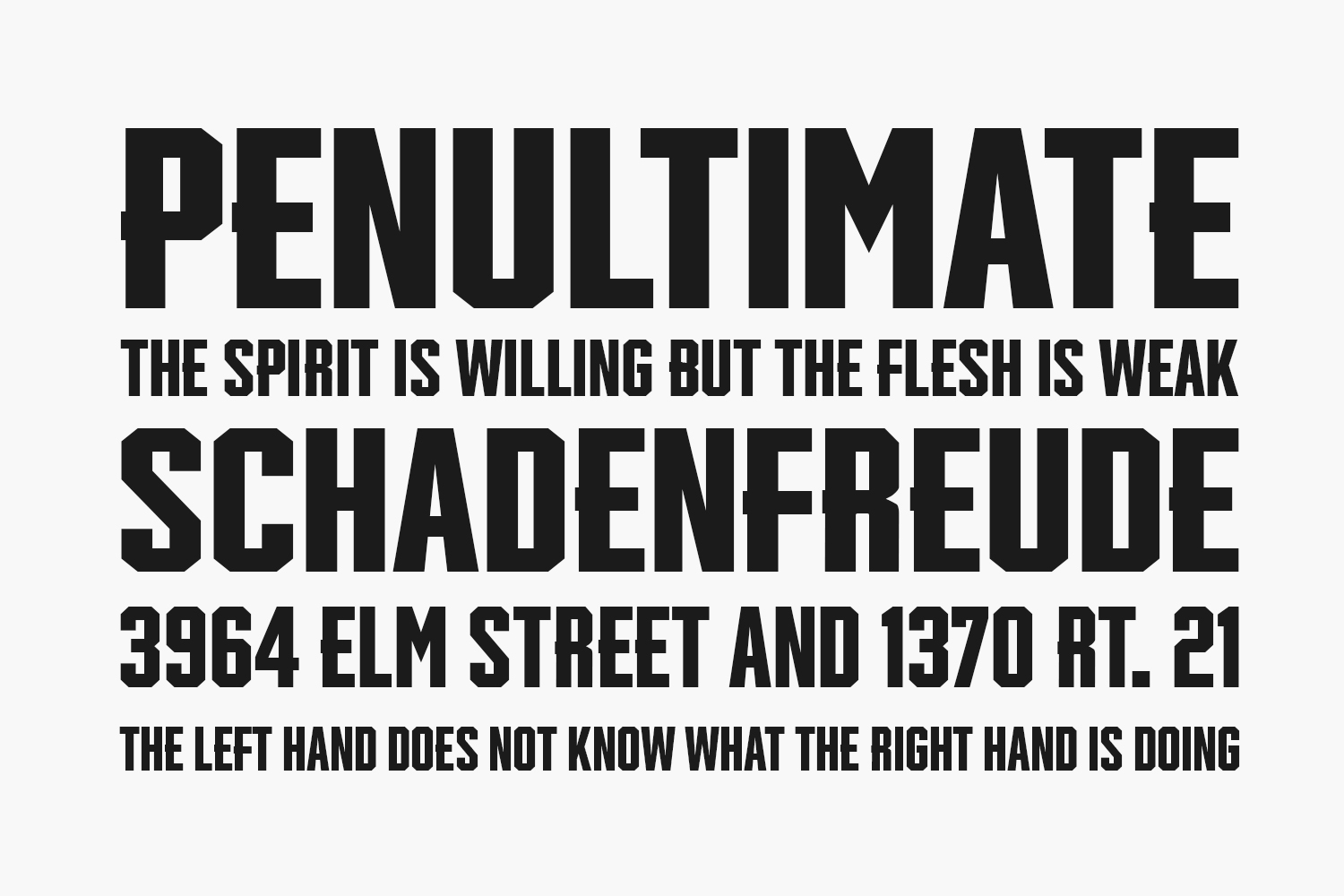
Pubg Sans Free Font is a bold and commanding display sans serif font that evokes the adrenaline-fueled excitement of battle royale gaming. With its clean lines and attention-grabbing presence, Pubg Sans Free Font is a must-have for any designer looking to infuse their work with a bold and daring edge. Pubg Sans Free Font is free for personal use only.
Designed by Siva Sai Chaitanya Gudari